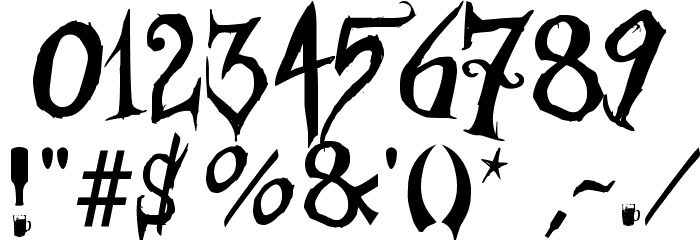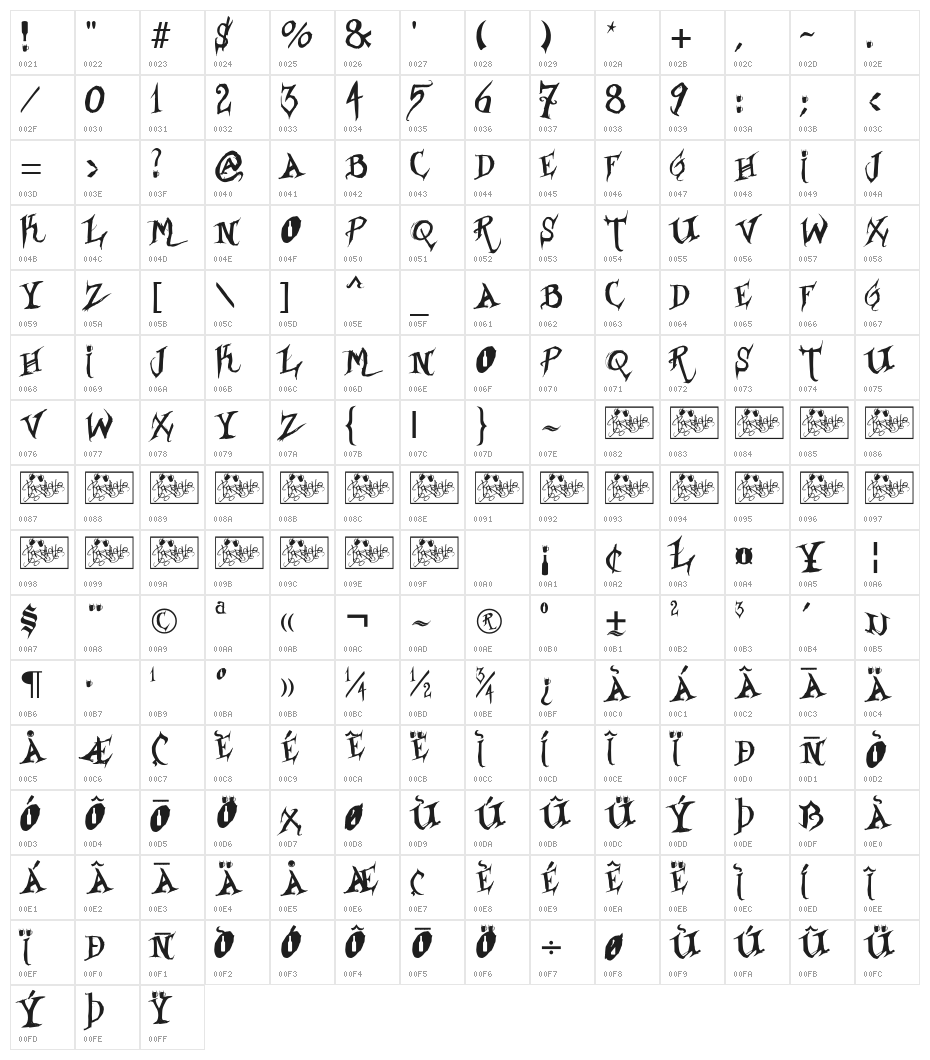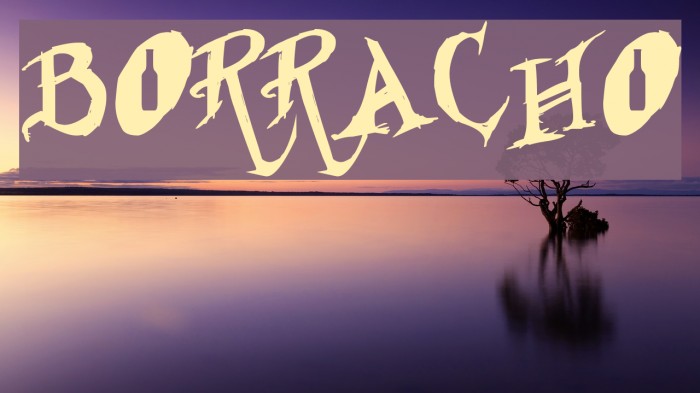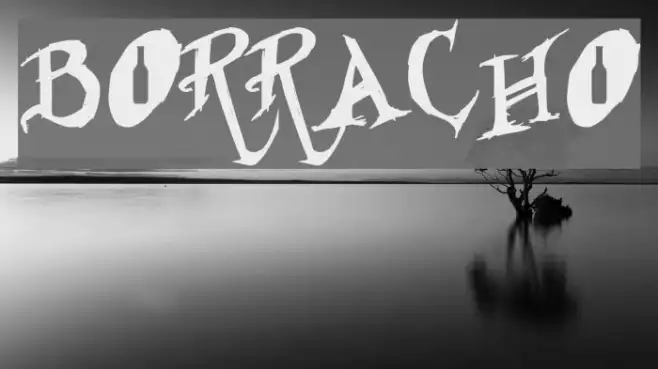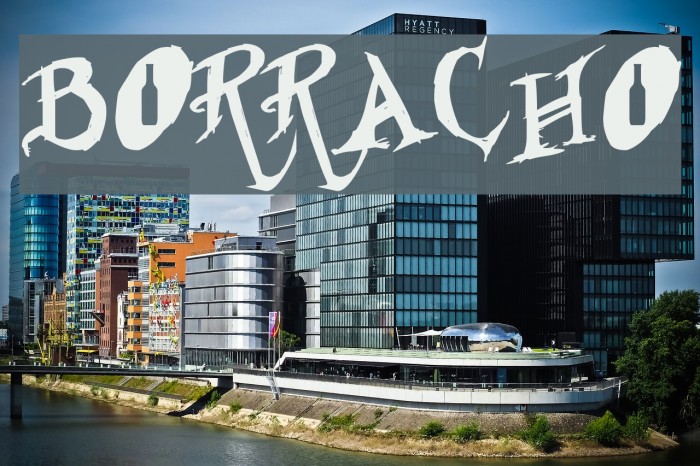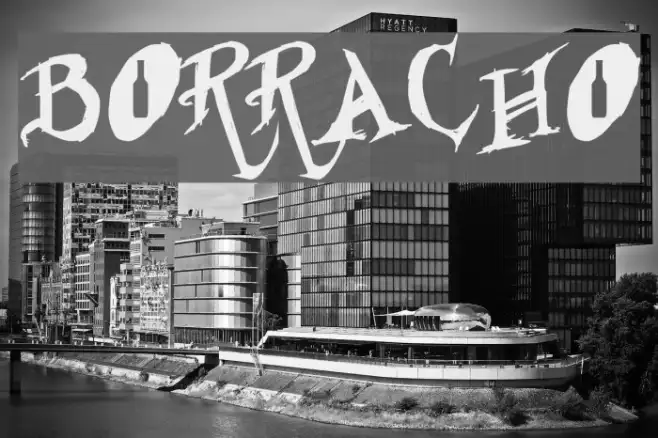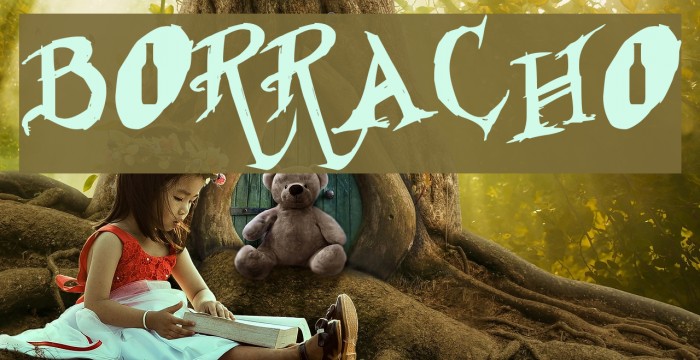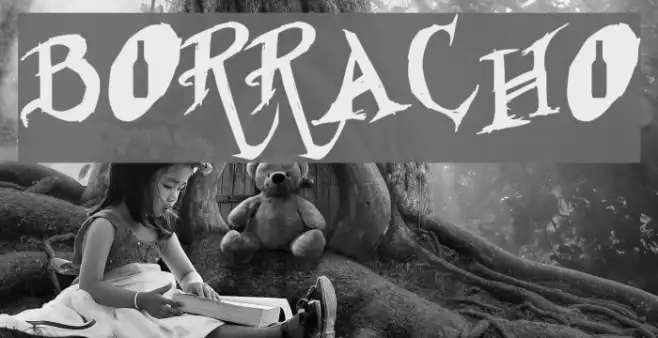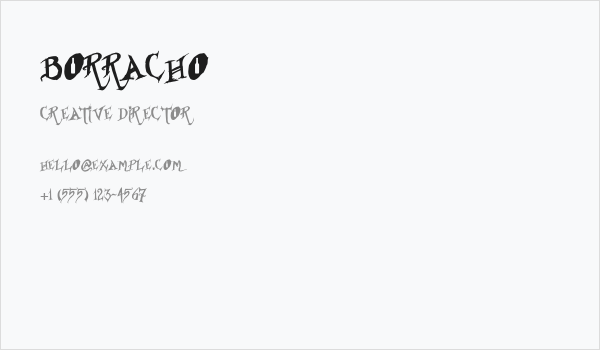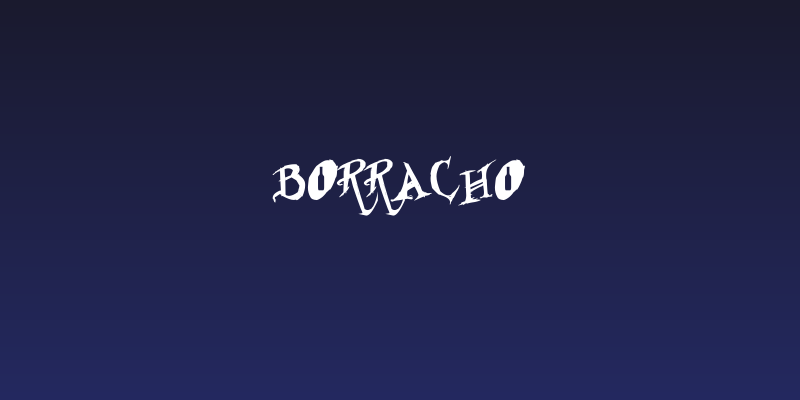
Borracho Font
Borracho Description
This font exhibits a bold and dynamic style with sharp, angular strokes that give it a fierce and energetic appearance. The characters are highly stylized, featuring exaggerated serifs and a sense of movement that suggests a hand-drawn quality. The uppercase and lowercase letters maintain a consistent design, with a slightly irregular baseline that adds to the font's edgy and rebellious character. The numerals and special characters follow the same aesthetic, ensuring a cohesive look across all glyphs. This font is ideal for projects that require a strong visual impact and a sense of individuality.